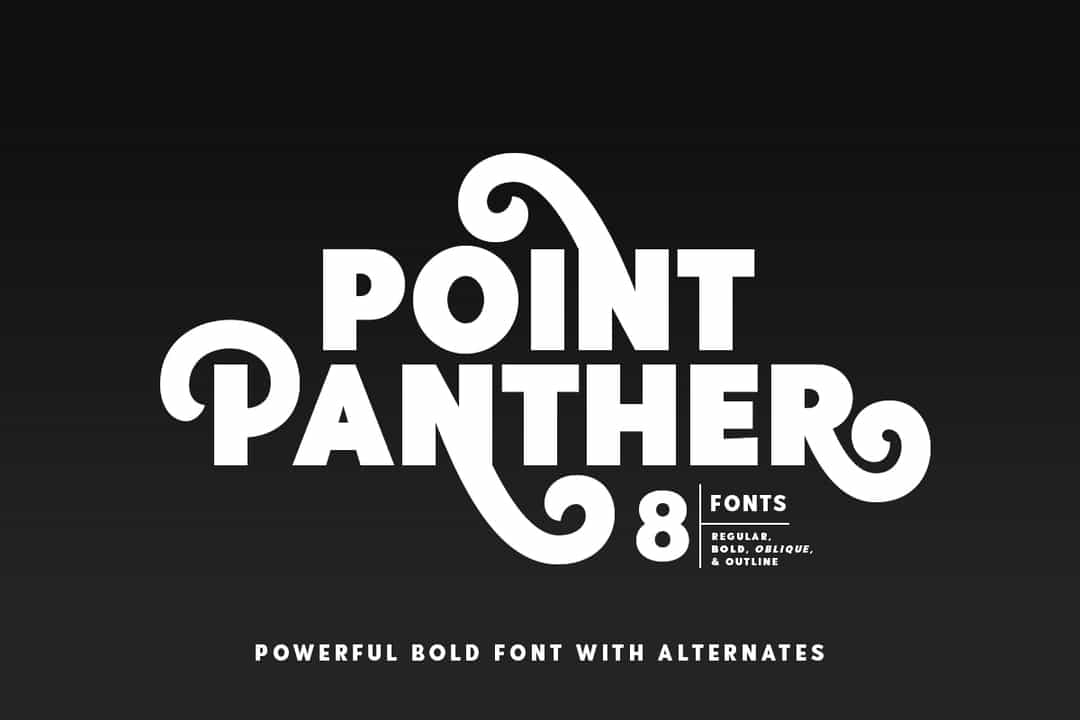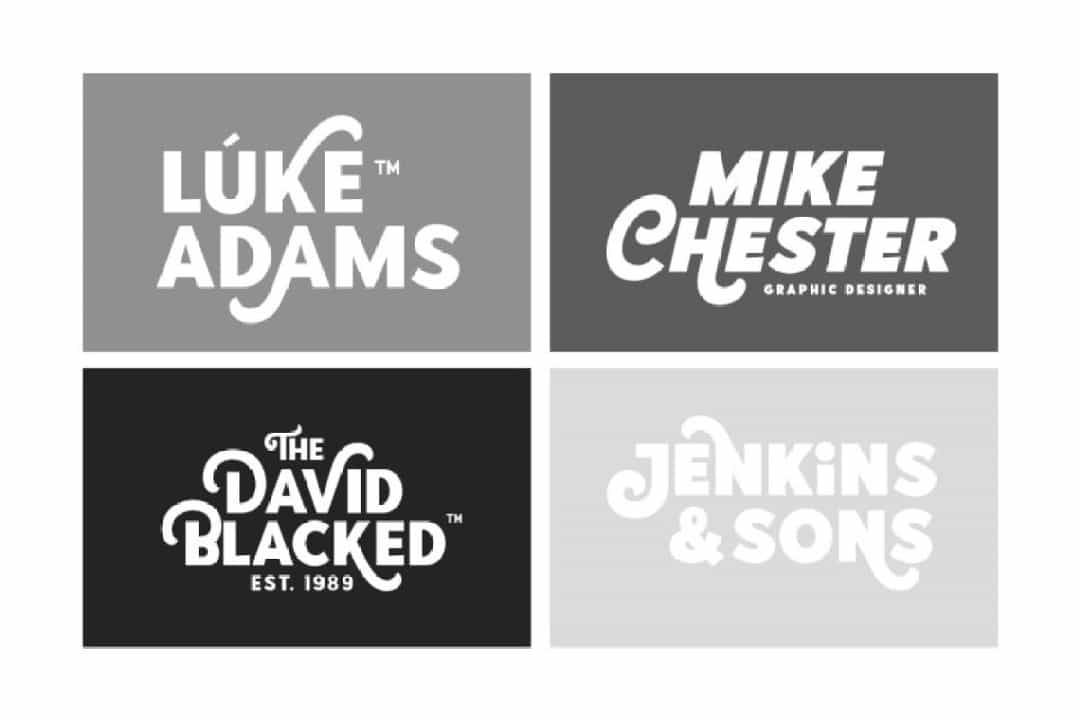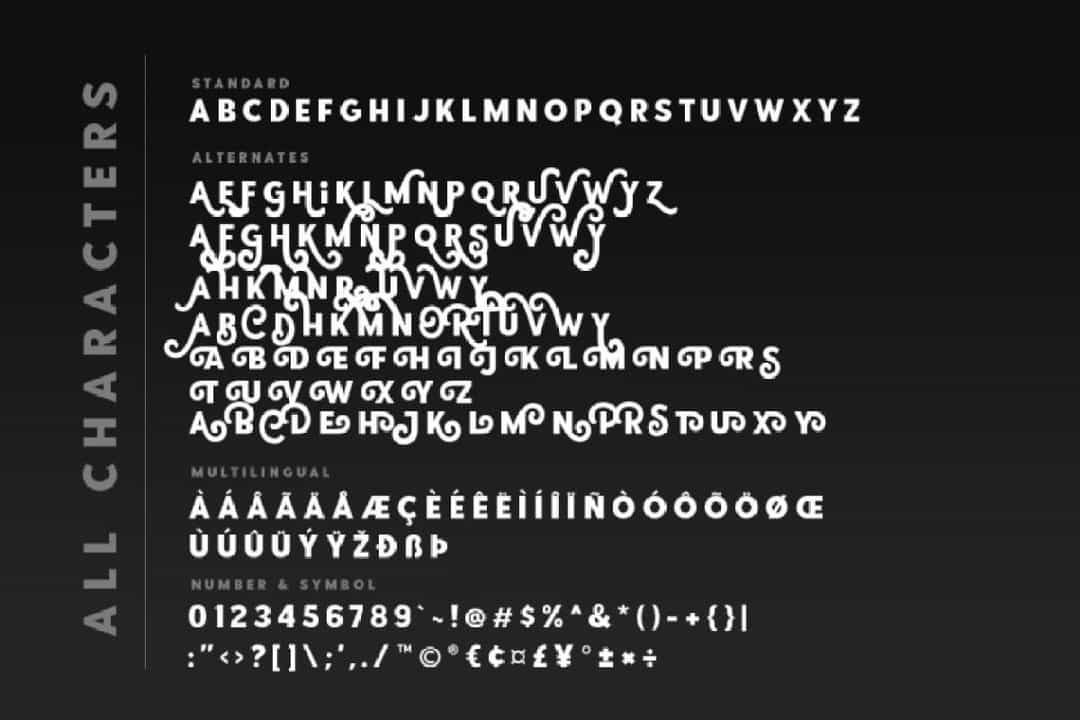
Point Panther is an outstanding bold sans-serif font with eight different designs that you can mix to achieve stunning effects in your designs! You don’t have to limit yourself when creating beautiful artwork using Point Panther; make your designs truly eye-catching by mixing up these fonts!